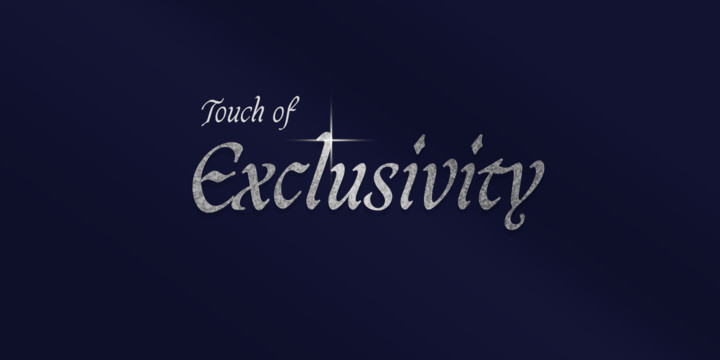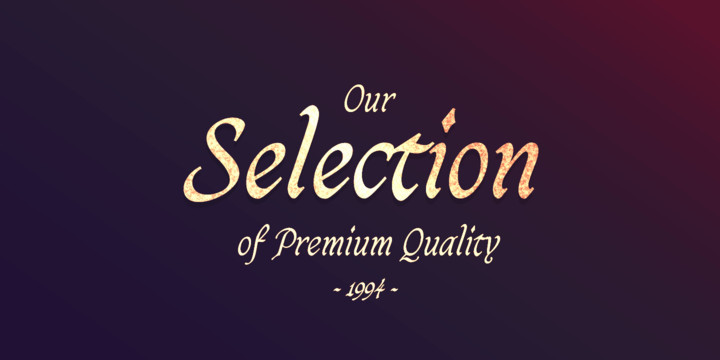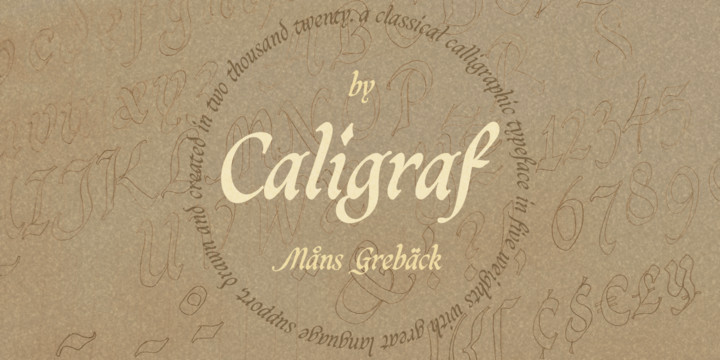
Caligraf Font
Caligraf is a classical calligraphy script.
It was drawn and created by Måns Grebäck during 2019 and 2020.
The character design blends traditional soft flowing handwriting with a modern, sharp look, and its angle and weight balance gives it a determined and progressive pace.